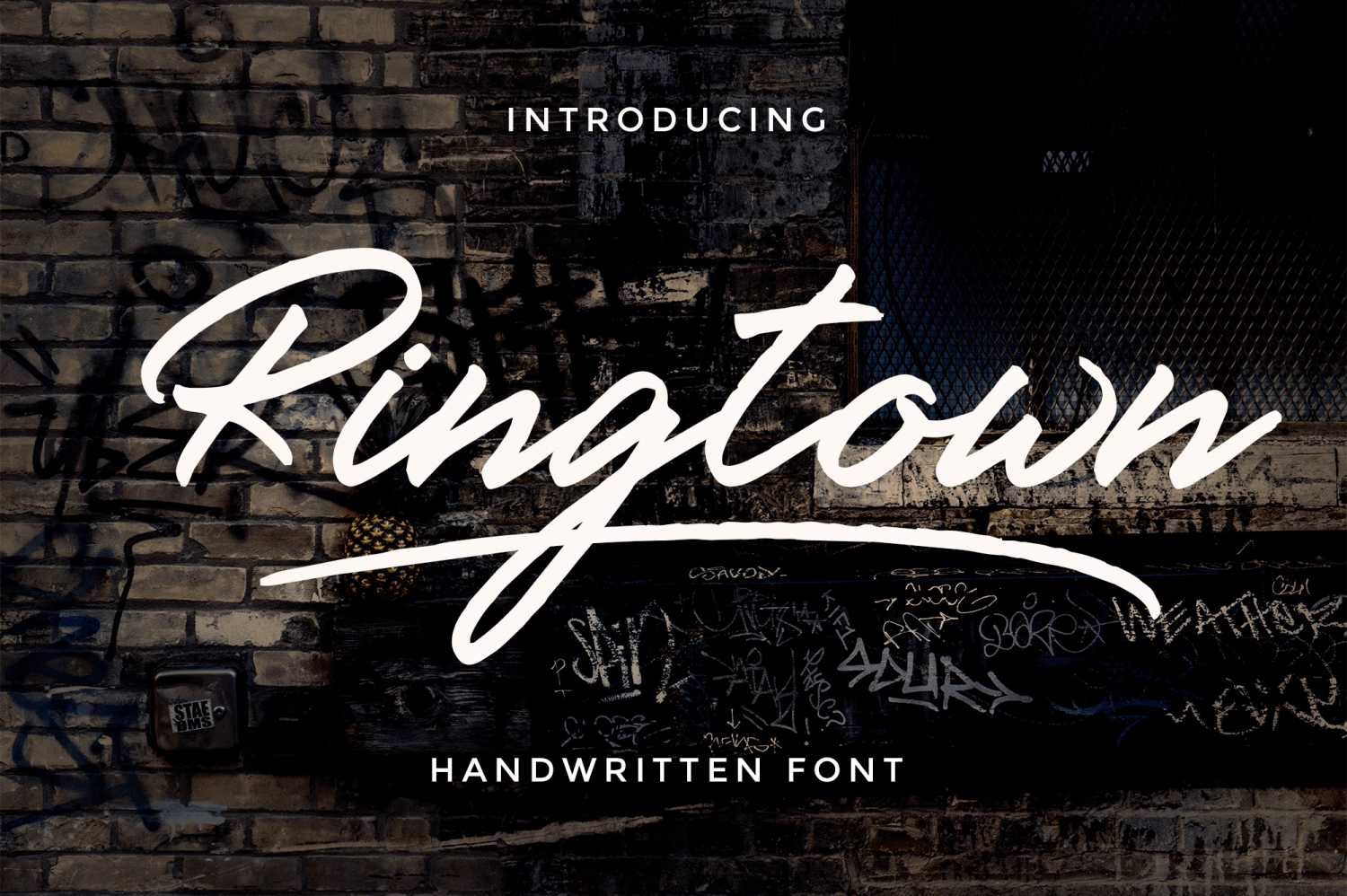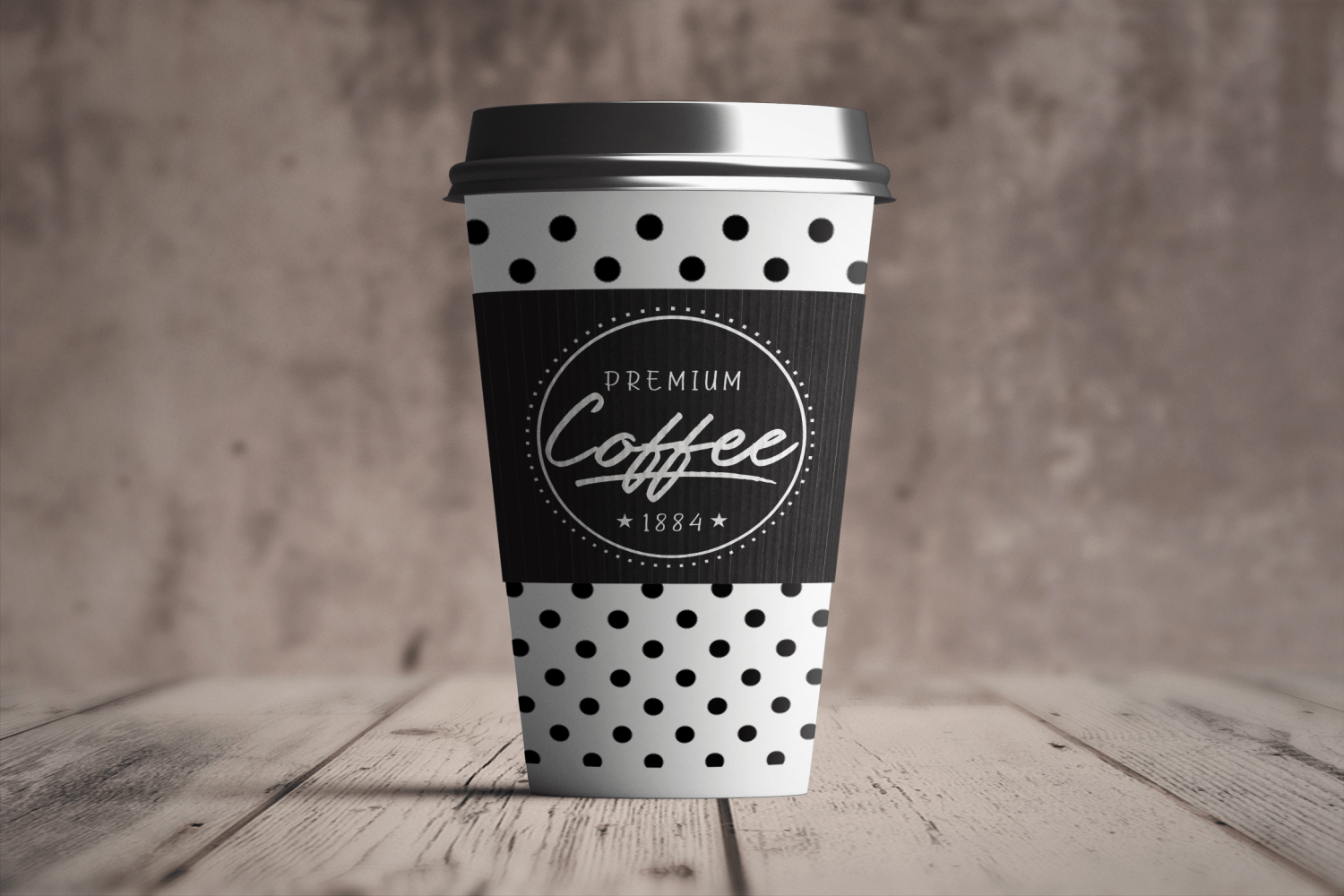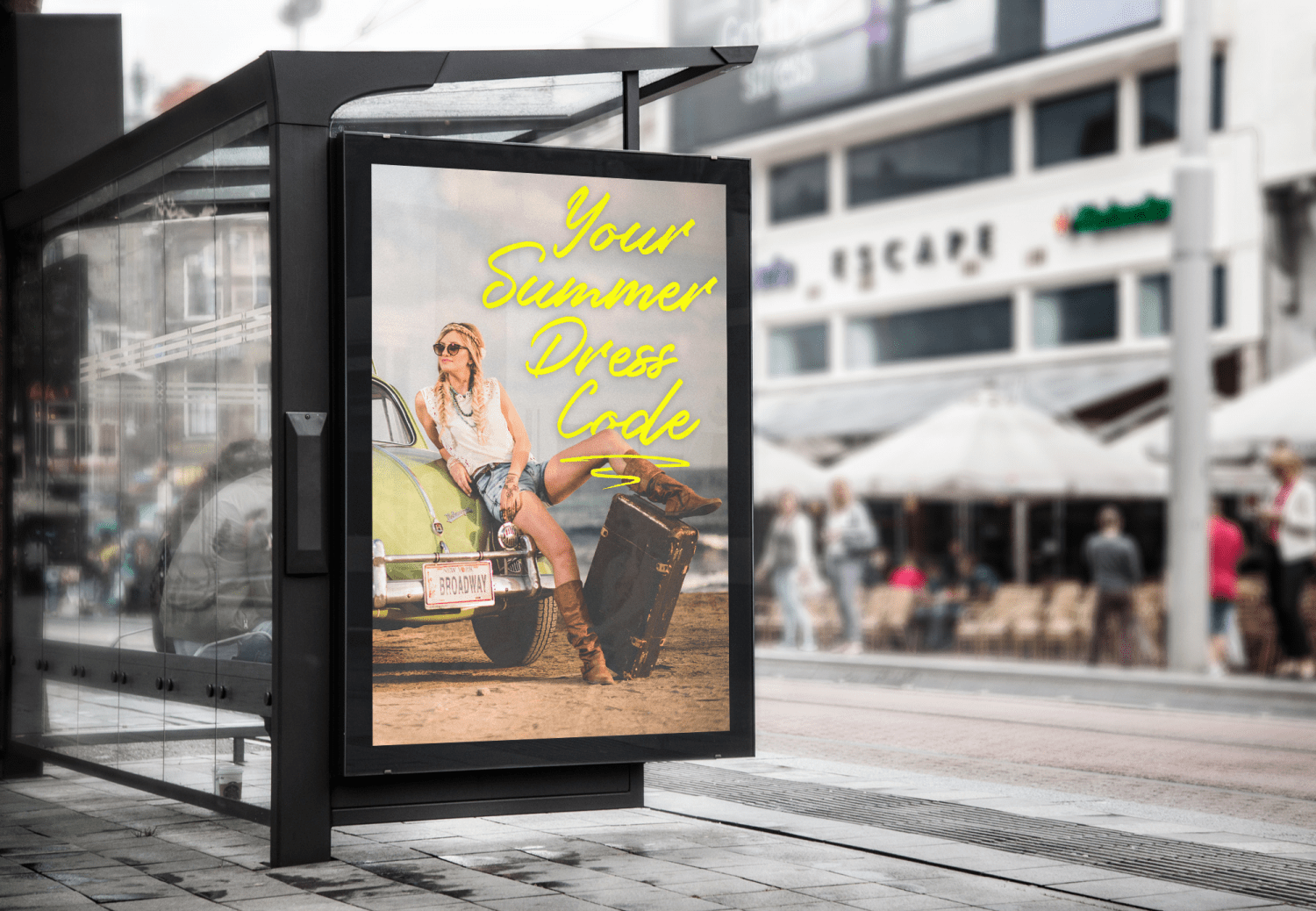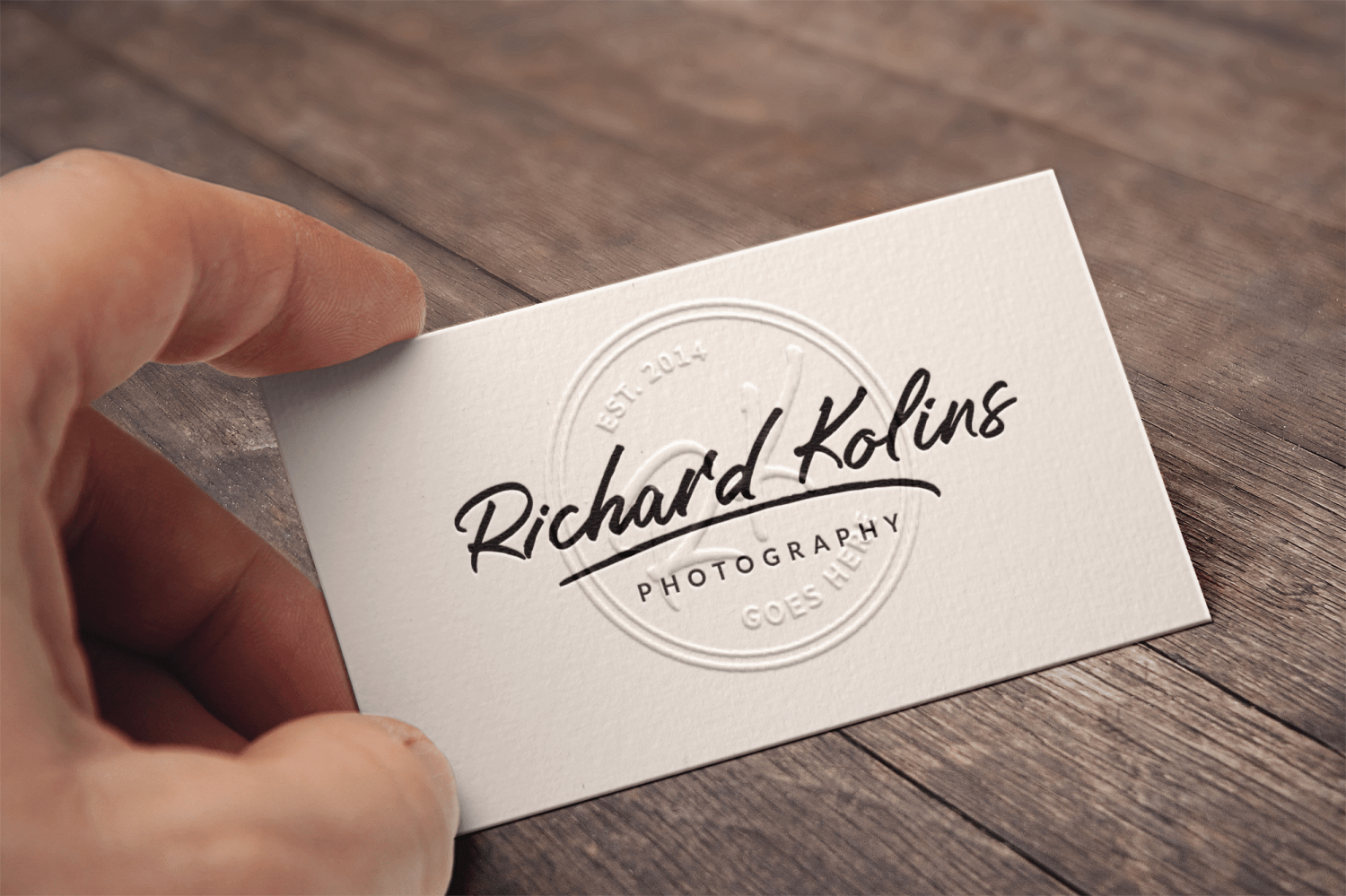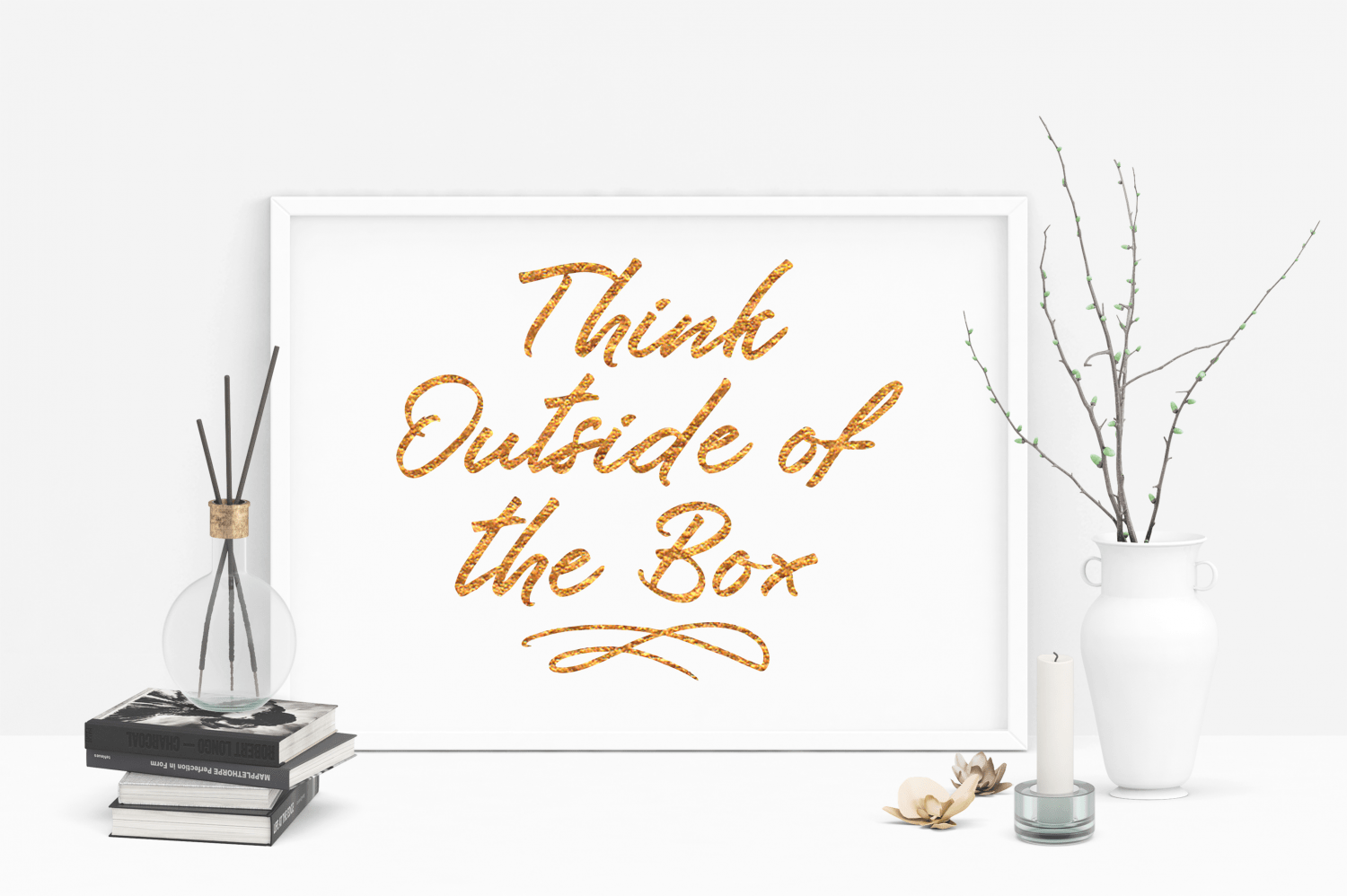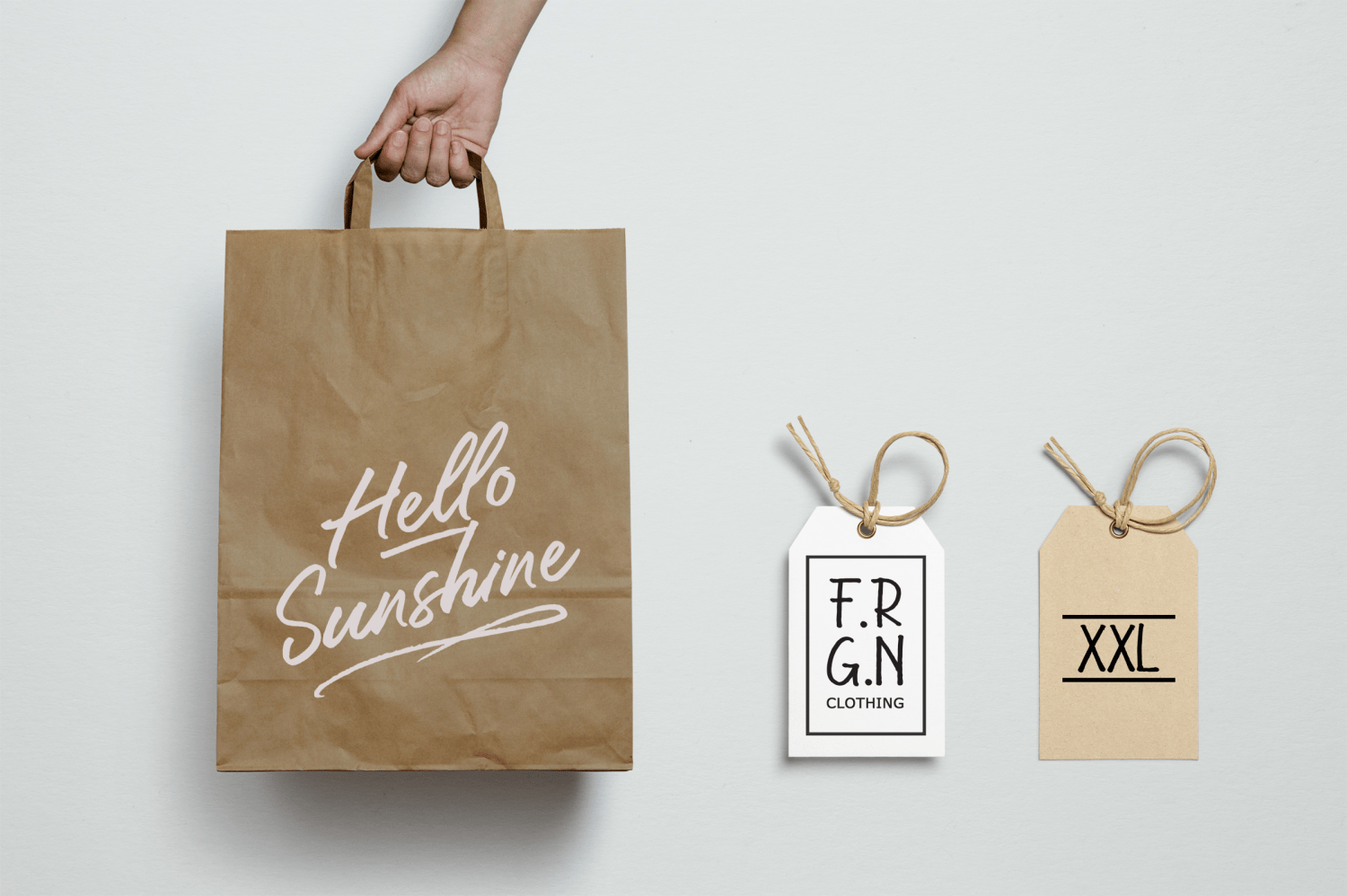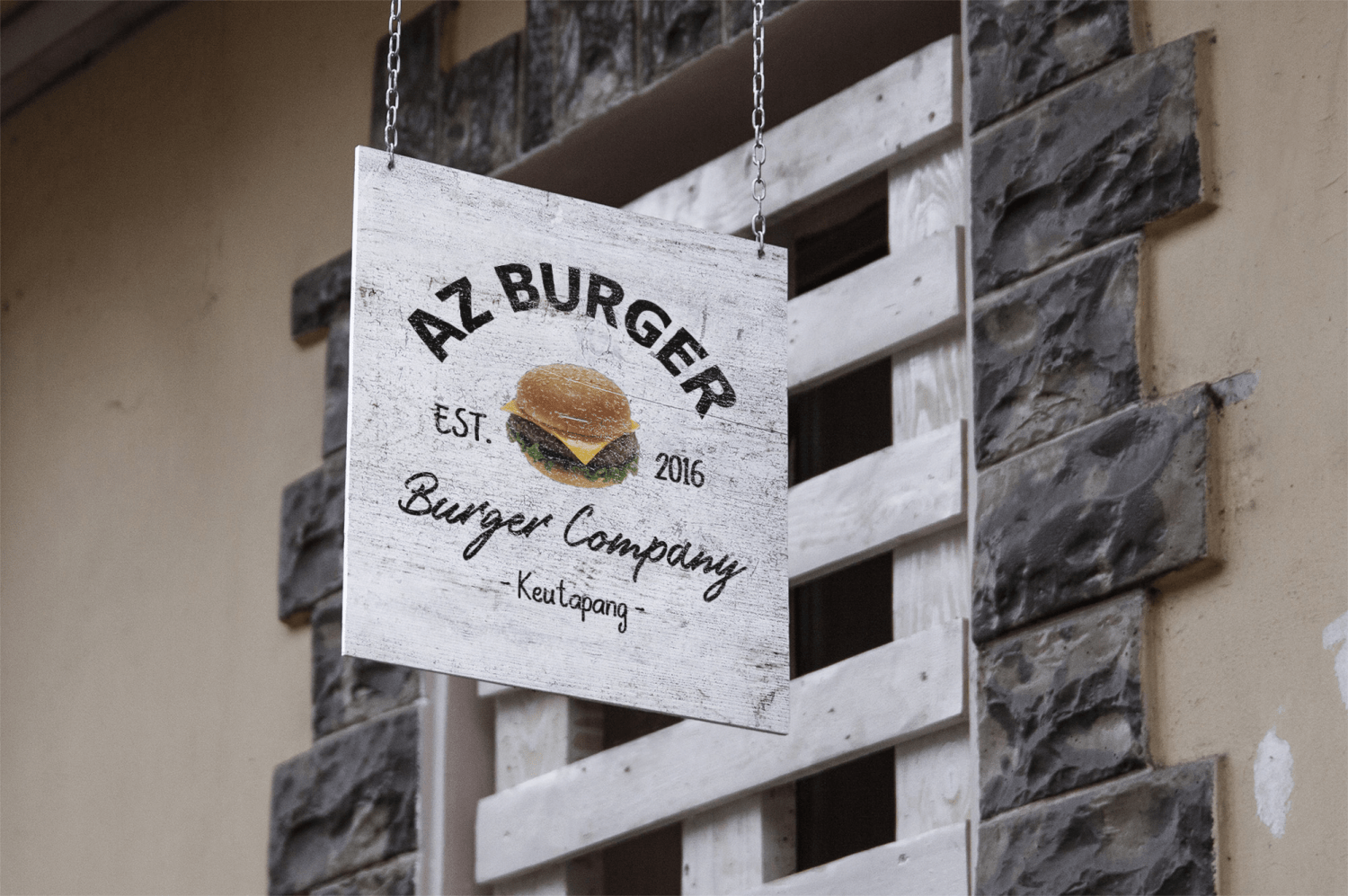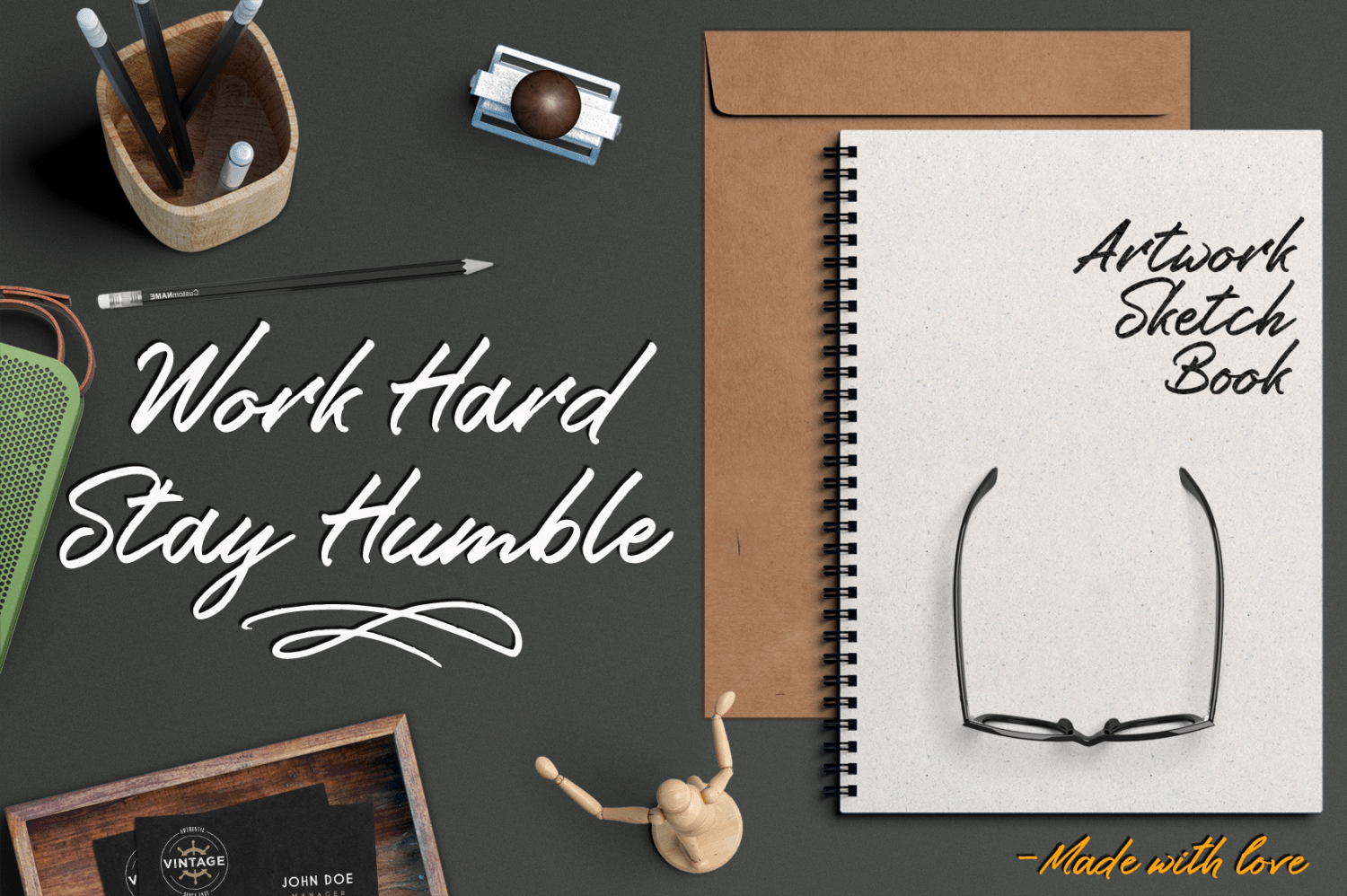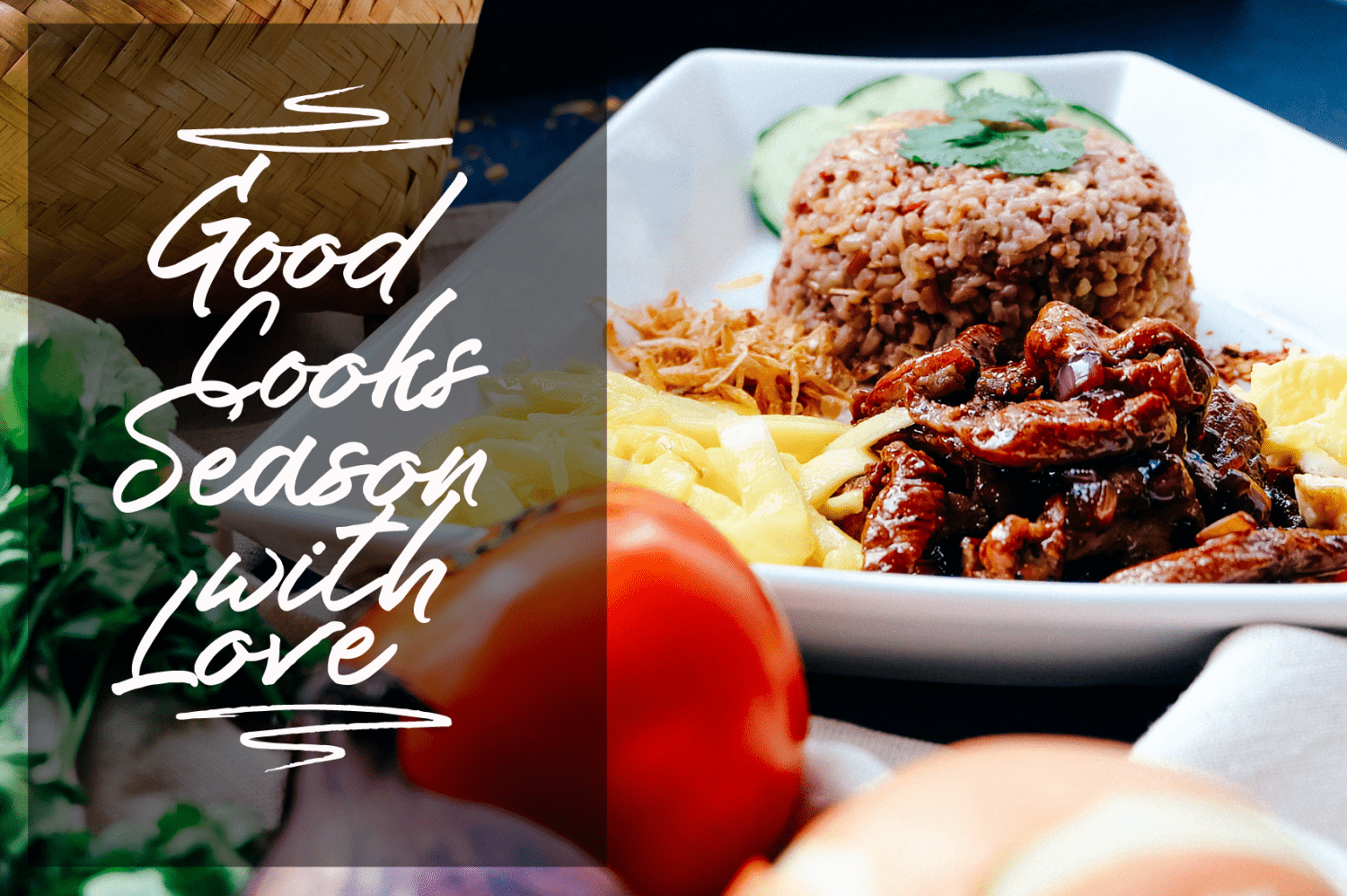
Ringtown
Ringtown is handwritten font with a signature style. perfect for branding projects, homeware designs, product packaging or simply as a stylish text overlay to any background image.
Ringtown has an entire 2 alternate font set and marker style font. This is accessible simply by their own separate font file - just install this as normal and select Ringtown Alt 1, Ringtown Alt 2, Ringtown Marker and Ringtown Swash in your text-tool
Ringtown -- A handwritten script font containing upper & lowercase characters, numerals and a large range of punctuation.
Ringtown Alt 1? the second version of Ringtown, with a completely new set of both lower and uppercase characters.
Ringtown Alt 2? the thirth version of Ringtown, with a completely new set of both lower and uppercase characters.
Ringtown Swash -- A set of 36 hand-drawn swashes, with cool touch to underline you're Ringtown text.